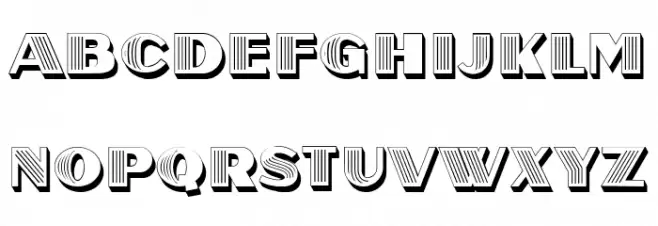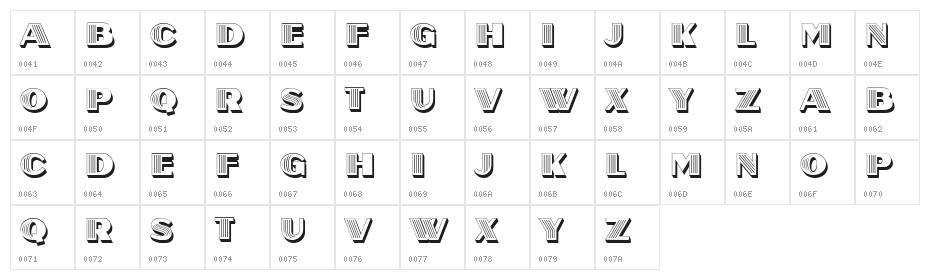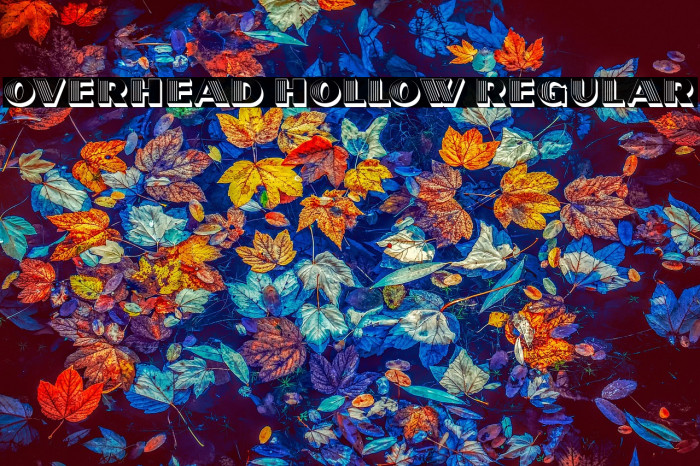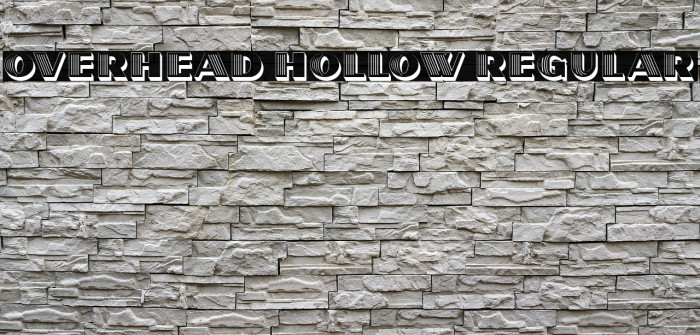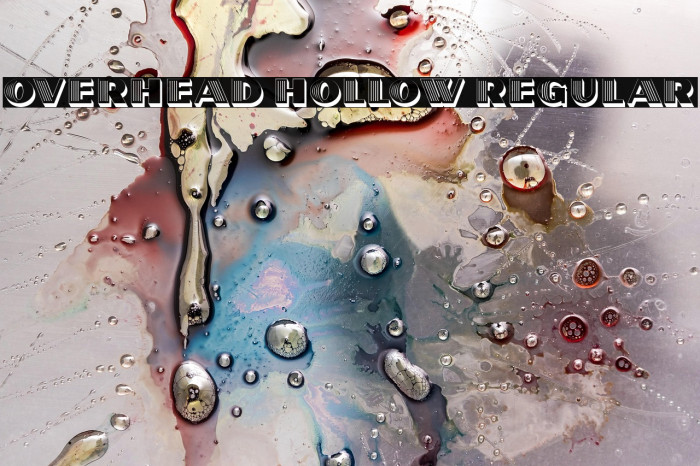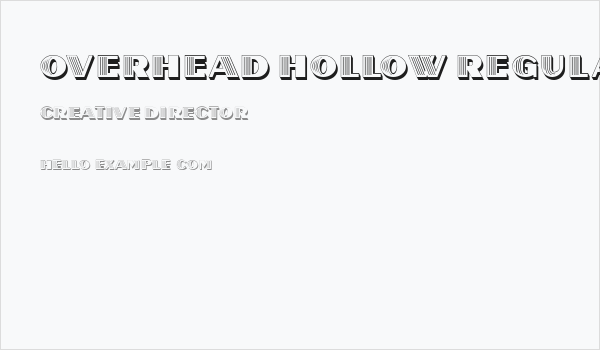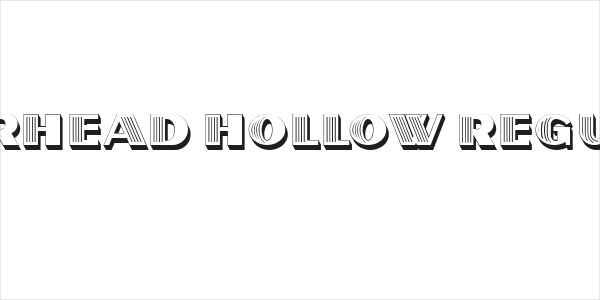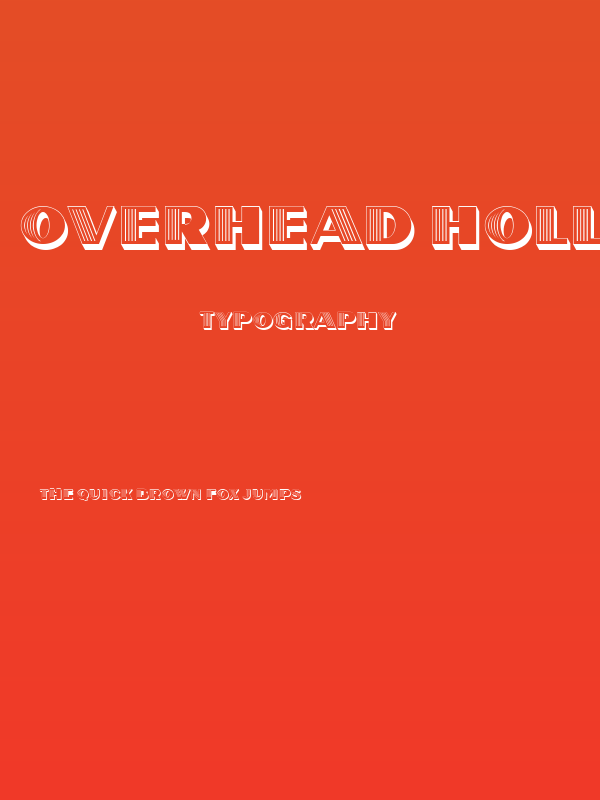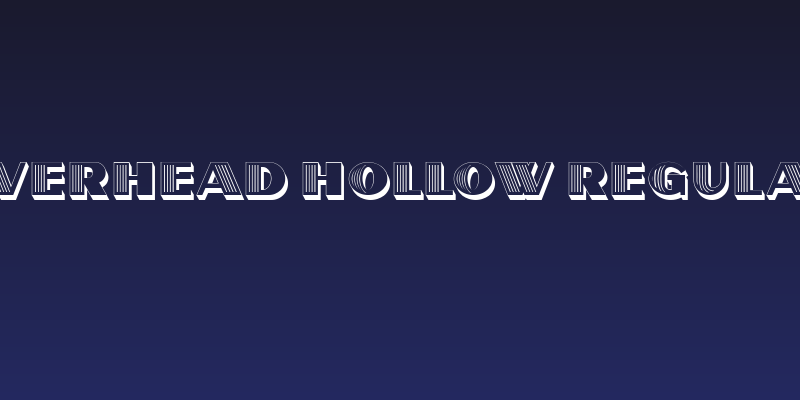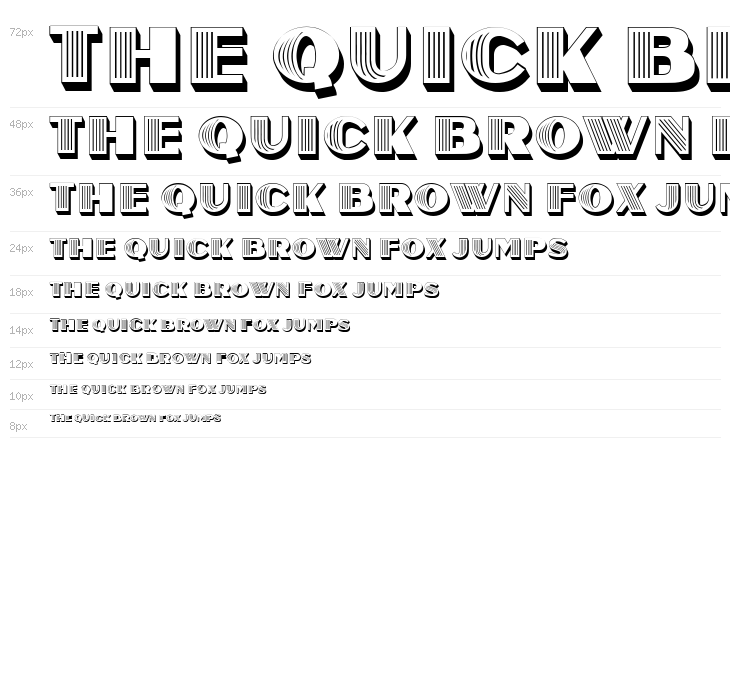
Overhead Hollow Regular Font
Overhead Hollow Regular Description
This font features a bold, hollow design with a distinct three-dimensional effect. Each character is outlined with a thick black border, creating a striking contrast against the white interior. The letters are uppercase, with a geometric and structured appearance, giving them a modern and dynamic feel. The font's style is reminiscent of vintage signage, making it suitable for projects that require a bold statement. Its unique hollow design adds depth and interest, making it stand out in any design context.
A bold, hollow font with a three-dimensional, vintage-inspired style from Uncategorized fonts.
- Proposed Projects: Ideal for poster designs, logos, headlines, and any project needing a bold, eye-catching typeface.
- Overall Style: Vintage